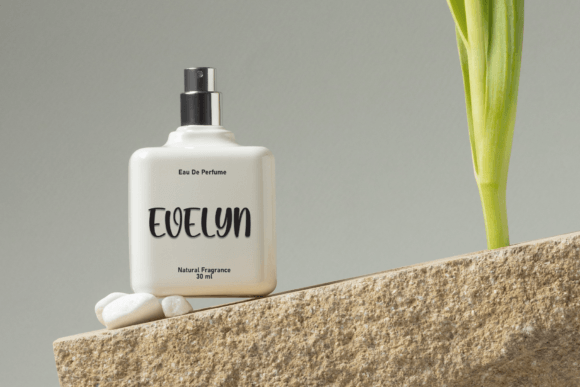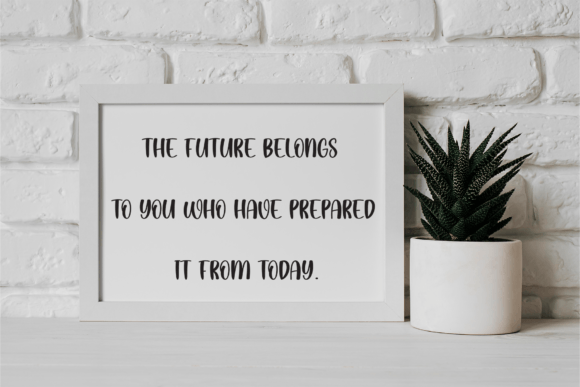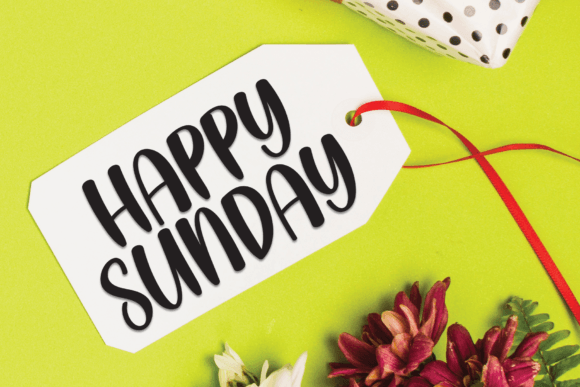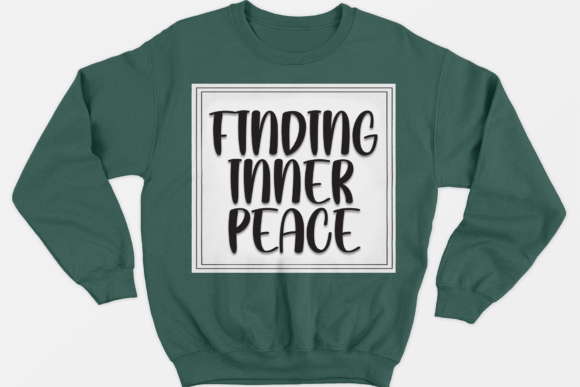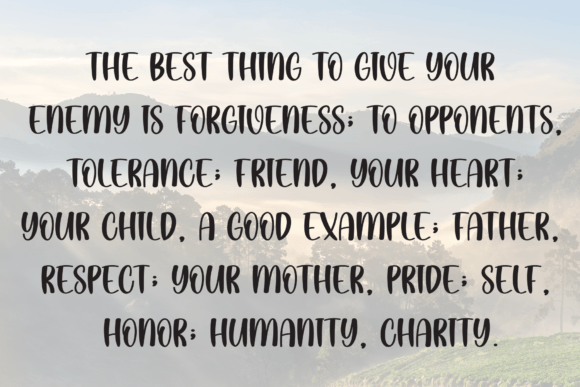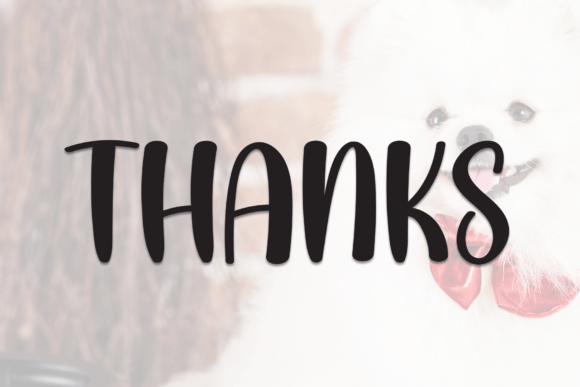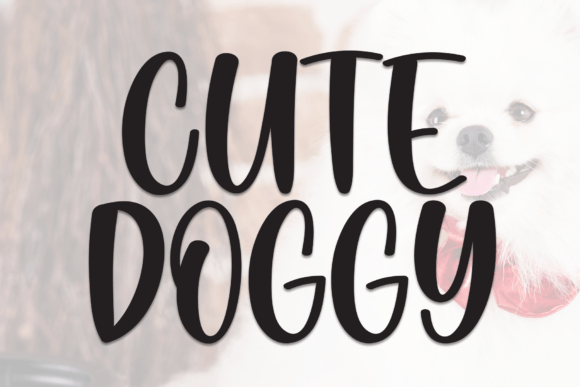
Cute Doggy Font: Add a Sweet and Friendly Touch to Your Designs
Are you looking for a font that can add a playful and charming touch to your designs? Look no further than the Cute Doggy font! This sweet and friendly handwritten display font is perfect for creating fun and eye-catching designs that are sure to delight. In this article, we’ll take a closer look at the Cute Doggy font, its features, and how you can use it to elevate your designs.
What is Cute Doggy Font?
Cute Doggy is a beautiful handwritten display font that is designed to bring a smile to your face. Its sweet and friendly appearance makes it perfect for a variety of design projects, from wedding invitations and cards to posters, flyers, and more. This font is carefully crafted to provide a fun and playful look that is sure to capture the attention of your audience.
Key Features of Cute Doggy Font
- Handwritten appearance: Cute Doggy has a natural, handwritten look that gives it a personal and friendly feel.
- Sweet and playful: This font is designed to be fun and playful, making it perfect for designs that require a lighthearted touch.
- Display font: Cute Doggy is a display font, which means it’s designed to be used at larger sizes, making it perfect for headings, titles, and other display text.
- Easy to read: Despite its playful appearance, Cute Doggy is easy to read, making it perfect for use in a variety of design projects.
How to Use Cute Doggy Font
Cute Doggy font is versatile and can be used in a variety of design projects, including:
- Wedding invitations: Add a touch of whimsy and romance to your wedding invitations with Cute Doggy font.
- Cards and stationery: Use Cute Doggy font to create fun and playful cards and stationery for any occasion.
- Posters and flyers: Cute Doggy font is perfect for creating eye-catching posters and flyers that require a playful touch.
- Social media graphics: Use Cute Doggy font to create fun and engaging social media graphics that are sure to stand out.
Tips for Using Cute Doggy Font
Here are a few tips for using Cute Doggy font in your designs:
- Use it sparingly: Cute Doggy font is a display font, so it’s best to use it sparingly to add emphasis to your design.
- Pair it with a simple font: Pair Cute Doggy font with a simple font to create contrast and make your design more readable.
- Experiment with colors: Cute Doggy font looks great in a variety of colors, so don’t be afraid to experiment and find the perfect color for your design.
Cute Doggy font is a sweet and friendly handwritten display font that is perfect for adding a playful touch to your designs. Its versatility and ease of use make it a great choice for designers and crafters of all levels. Whether you’re creating wedding invitations, cards, posters, or social media graphics, Cute Doggy font is sure to bring a smile to your face and delight your audience.
So why not give Cute Doggy font a try? With its charming appearance and ease of use, it’s sure to become a favorite in your design toolkit.